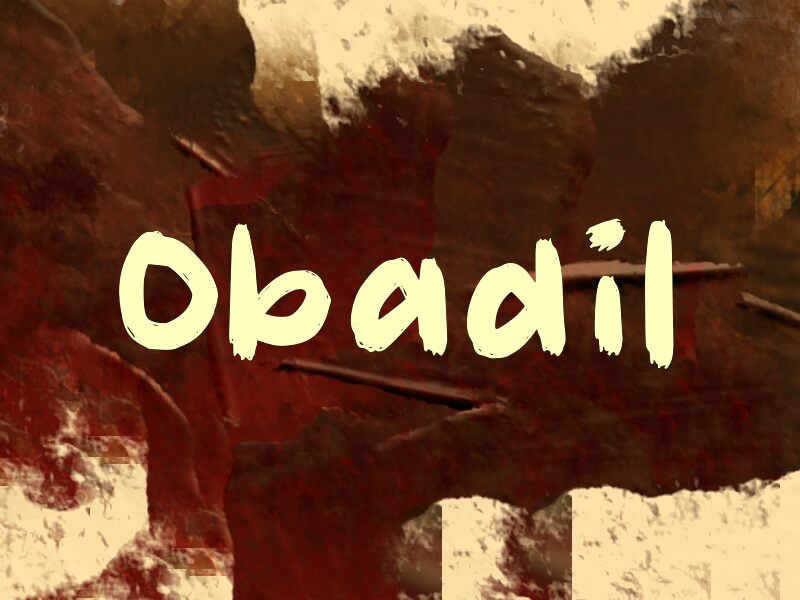
Obadil
Obadil font by wep is a free brush font that looks like it’s been dragged across the page with a thick, inky marker. The strokes are bold, choppy, and slightly uneven, giving every word a raw, hand-done presence that grabs attention without feeling slick or polished. There’s a sense of movement in the letters, as if the paint is still drying on the surface.
Using Obadil, you get a gritty, expressive voice that shines on posters, album covers, streetwear graphics, social media visuals, stickers, and bold logotypes. This free font works beautifully when you want attitude and immediacy rather than clean corporate polish. Pair Obadil with a simple geometric sans in smaller text to keep the message readable while letting the brushy lettering do the shouting.